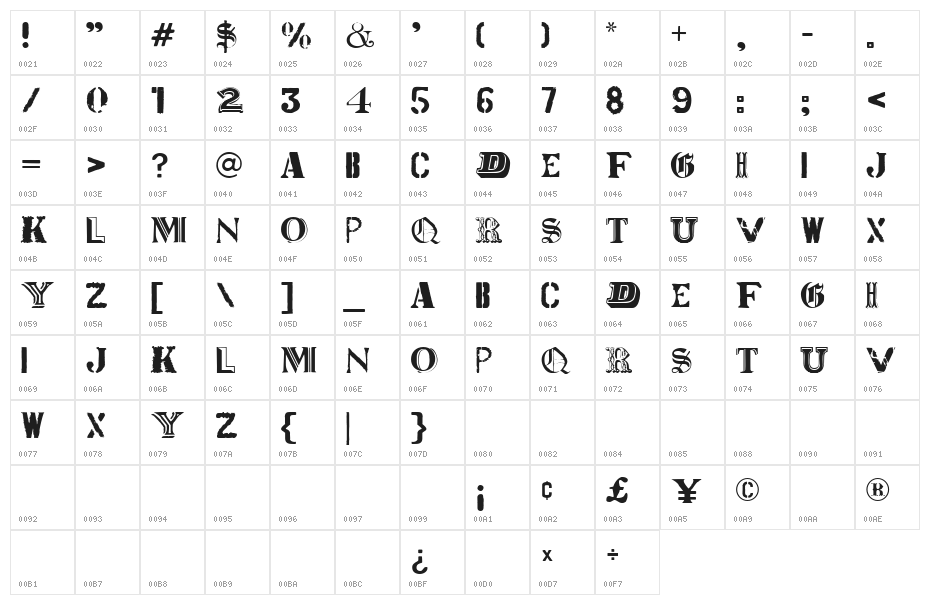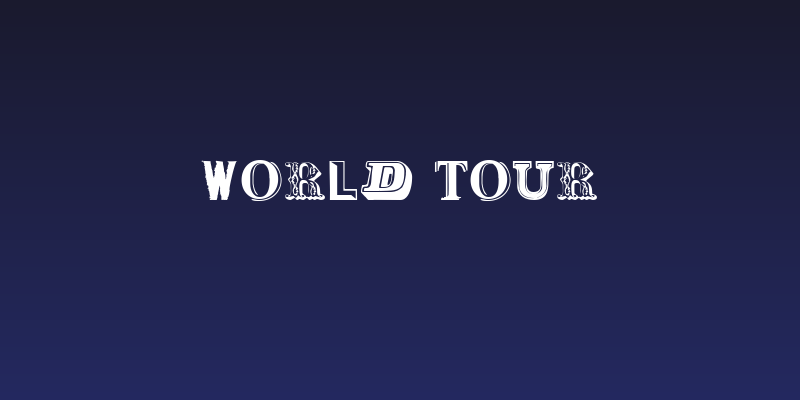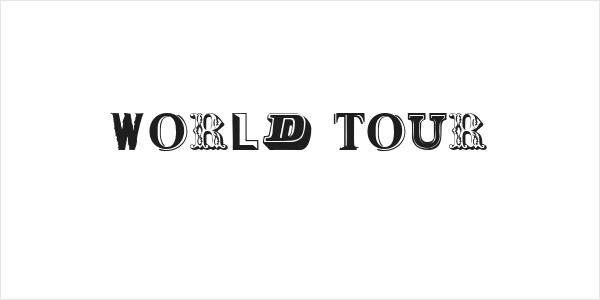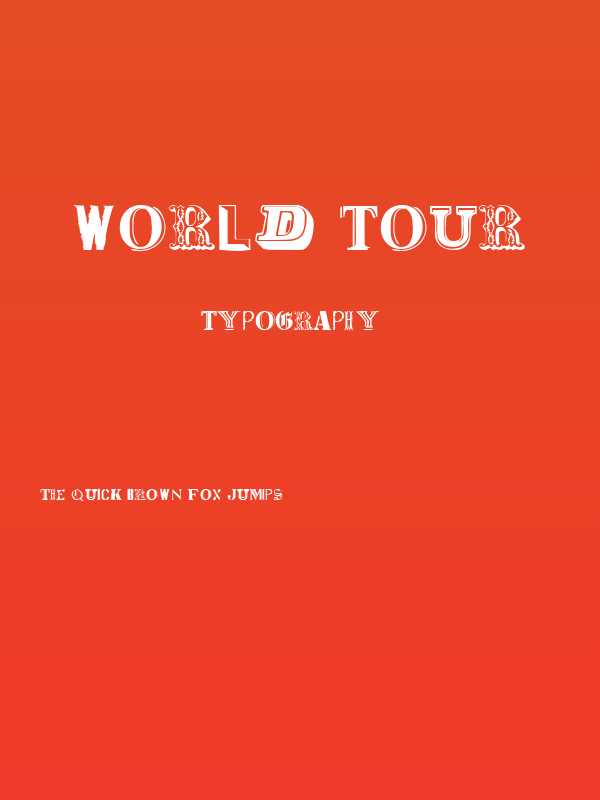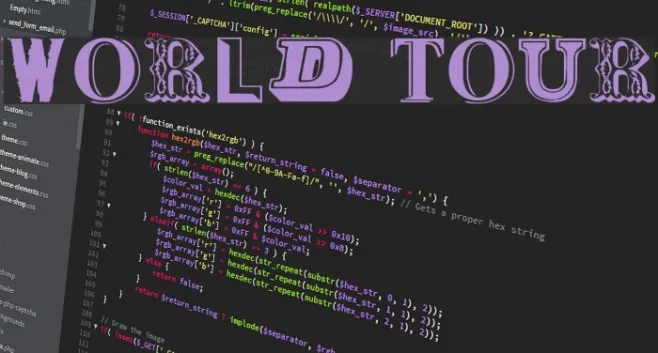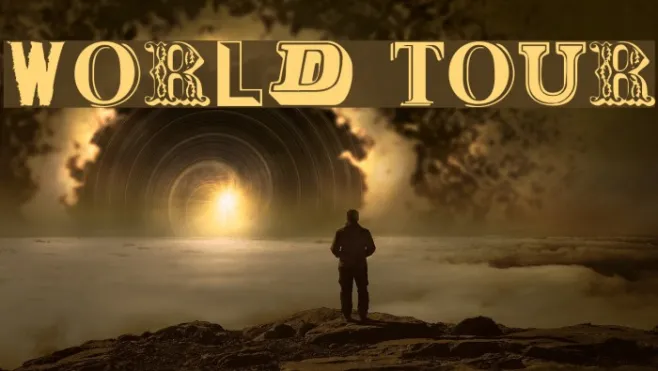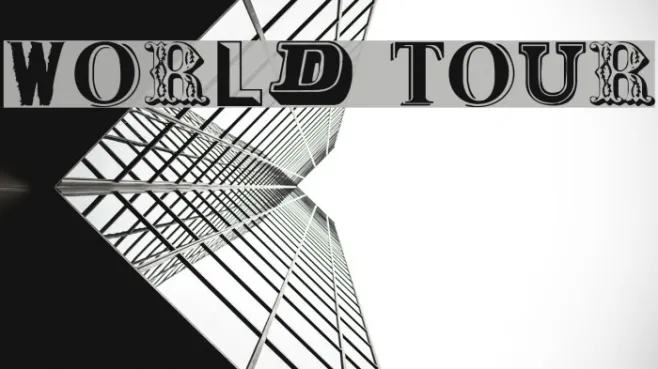
World Tour Font
World Tour Description
This font is a bold and eclectic display typeface that combines various styles within each character, creating a unique and eye-catching appearance. Each letter features distinct design elements, such as distressed textures, bold outlines, and intricate patterns, making it ideal for creative and artistic projects. The font's diverse character set includes uppercase and lowercase letters, numbers, and a variety of special symbols, all designed with a consistent yet varied aesthetic. Its playful and unconventional style makes it perfect for projects that require a standout visual impact.
| Proposed Projects | Ideal for posters, album covers, branding, and any project needing a bold visual statement. |